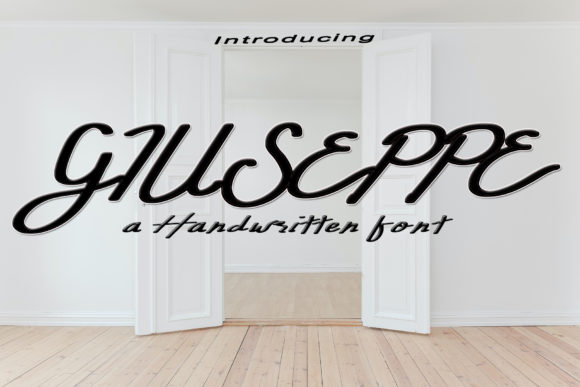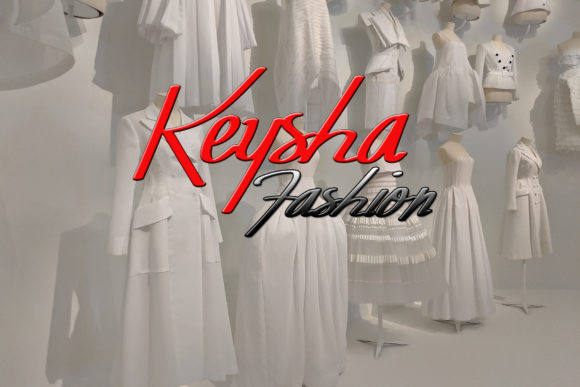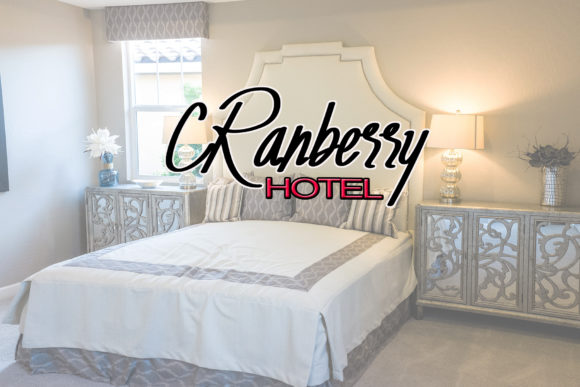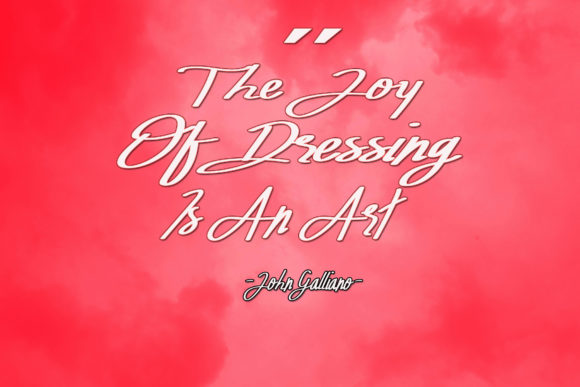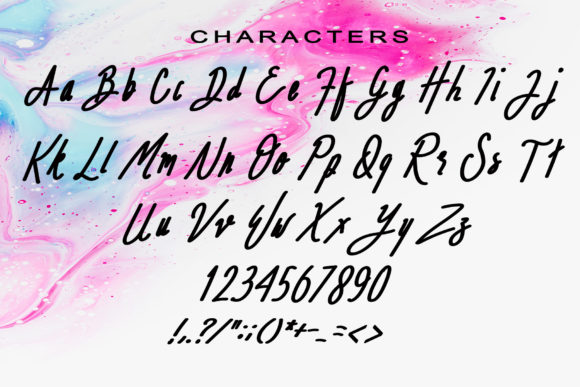
Giuseppe Font
About Giuseppe Font
Giuseppe is a sweet and friendly handwritten font. Its natural and unique style makes it incredibly fitting to a large pool of designs. The only limit is your imagination!